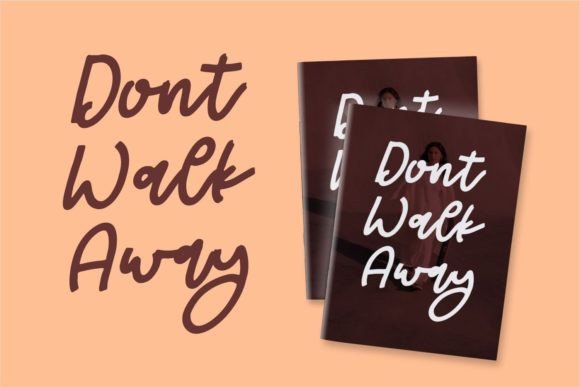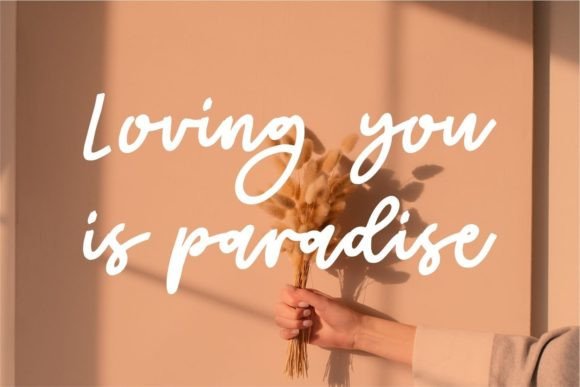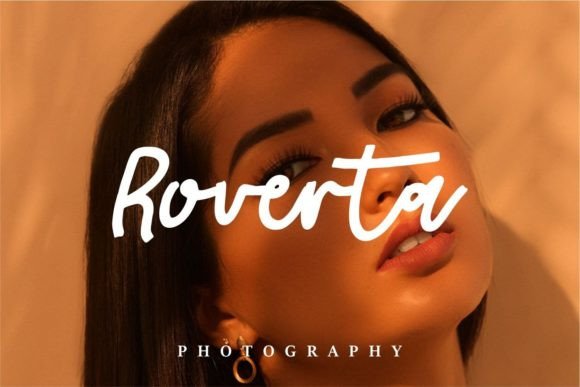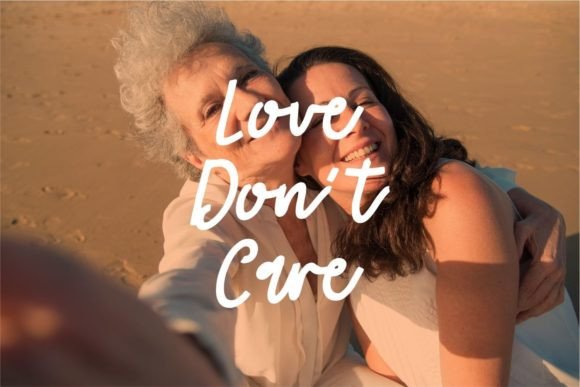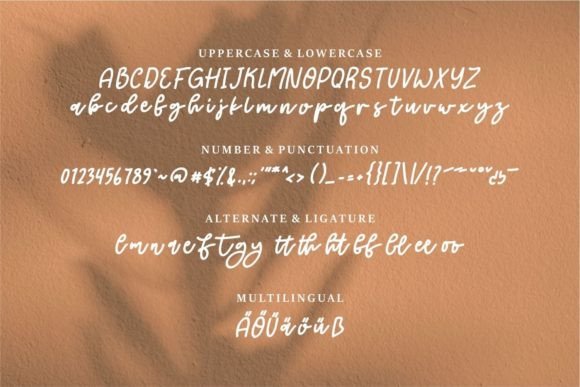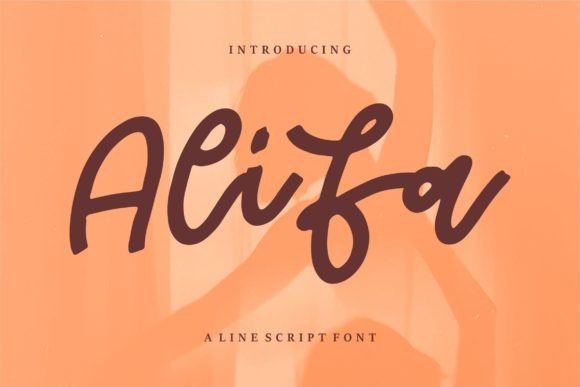
The Alifa Font: A Modern Handwritten Script for Creative Projects
I’ll never forget the time I was working on a wedding invitation design project, and my client asked for a font that was both elegant and playful. I scoured the internet, trying out font after font, but nothing seemed quite right. That was until I stumbled upon the Alifa font. With its modern handwritten script style, it was love at first sight! 💕
The Alifa font is a game-changer for any designer, crafter, or creative hobbyist looking to add a touch of personality to their projects. In this article, I’ll share my experience with the Alifa font, its features, and how to make the most of it in various design platforms.
An Honest Review of Alifa Font
- ✨ Natural and stylish: The Alifa font has a beautiful, handwritten feel that’s perfect for creating unique and eye-catching designs.
- ✅ Versatile: This font is suitable for a wide range of projects, from wedding invitations and greeting cards to logos and business cards.
- 💻 PUA encoded: The Alifa font is PUA encoded, making it easy to access all the amazing glyphs and ligatures.
While the Alifa font is amazing, there are a few things to keep in mind: 🤔
- ⚠️ Requires OpenType features: To get the most out of the Alifa font, you’ll need to use OpenType features, which can be a bit tricky in some design platforms.
The Backstory of Alifa Font
The Alifa font was designed by a team of typographers who wanted to create a modern, handwritten script font that was both elegant and playful. Inspired by the beauty of handwritten letters, the Alifa font is perfect for creative projects that require a personal touch.
Q: What is the Alifa font?
A: The Alifa font is a modern handwritten script font that’s perfect for creative projects that require a personal touch.
Q: Is the Alifa font PUA encoded?
A: Yes, the Alifa font is PUA encoded, making it easy to access all the amazing glyphs and ligatures.